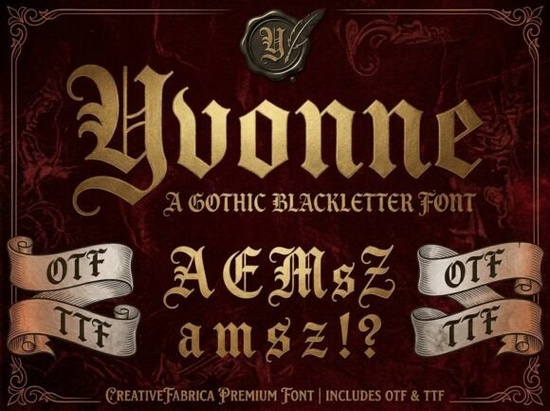
Yvonne Font is a standout choice for anyone looking to add a touch of dramatic elegance to their design projects. This premium blackletter font blends historical inspiration with modern sophistication, making it ideal for a range of creative and commercial uses. Whether you're working on high-end packaging, branding materials, or event invitations, Yvonne offers a unique visual identity that commands attention.
Designed with sharp, angular strokes and a traditional calligraphic structure, Yvonne brings a sense of authority and mystery to any project. The font’s gold-etched texture adds an extra layer of luxury, evoking the feel of medieval manuscripts and royal heraldry. This combination of historical depth and contemporary flair makes it a versatile tool for designers and small businesses alike.
What Makes Yvonne Font Unique?
Unlike many other blackletter fonts, Yvonne doesn’t just look old-fashioned it feels like it belongs in a world where tradition meets modernity. Its clean yet intricate details make it suitable for both digital and print applications. The font’s ability to convey a sense of heritage and exclusivity sets it apart from more generic options.
One of the key features of Yvonne is its readability. While it has a strong, bold presence, it remains legible even at smaller sizes. This makes it perfect for use in logos, headlines, and other design elements where clarity is important alongside style.
Best Uses for Yvonne Font
Yvonne Font is particularly well-suited for projects that require a dark, luxurious aesthetic. It’s a popular choice among craft breweries, distillers, and independent brands looking to create a distinctive visual identity. The font works especially well on spirit labels, where its regal appearance can enhance the perceived value of the product.
For event planners and designers, Yvonne is an excellent option for “secret society” invitations, cinematic titles, and heavy metal album covers. Its dramatic look adds an air of intrigue and sophistication that can elevate any design concept.
If you’re into print-on-demand or custom merchandise, Yvonne can help you stand out in a crowded market. Whether you're creating t-shirts, mugs, or posters, this font adds a unique edge that appeals to niche audiences.
How to Use Yvonne Font Effectively
To get the most out of Yvonne Font, consider pairing it with simpler typefaces for balance. For example, using a sans-serif font for body text while reserving Yvonne for headings or logos can create a visually appealing contrast. This approach helps maintain readability without sacrificing style.
When working with color, keep in mind that the gold-etched texture of Yvonne works best with dark backgrounds. Lighter colors may not highlight the font’s details as effectively. Experimenting with different color combinations can help you find the right look for your project.
For those new to using blackletter fonts, Yvonne offers a great starting point. Its blend of historical charm and modern usability makes it accessible for both beginners and experienced designers. Whether you're working on a personal project or a professional brand, this font provides a powerful way to express creativity and style.